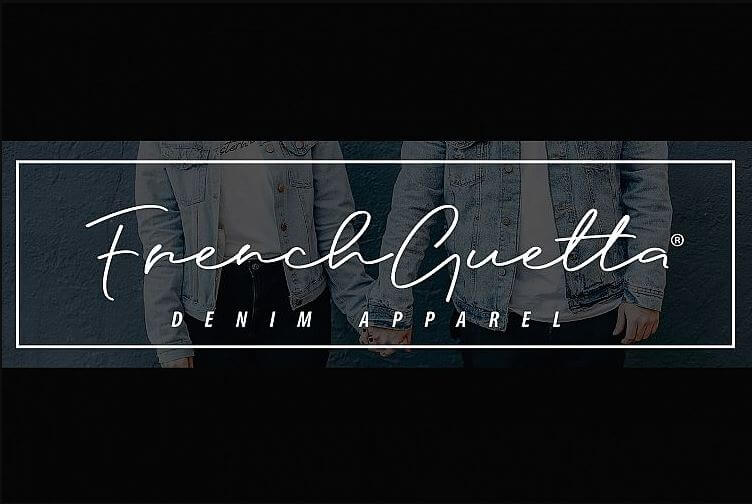
Anjel Signature Font
Anjel Signature Font the new and classic font style. This is a fresh and new handwritten font. This font style has a classy touch in itself which made classical poetry looks too good and fresh. Anjel signature font is designed by the great artist Mas Anis.
Anjel was made with the heart of have heart to elevate your work to the outstanding and highest level.
Style Of Anjel Signature Font Free